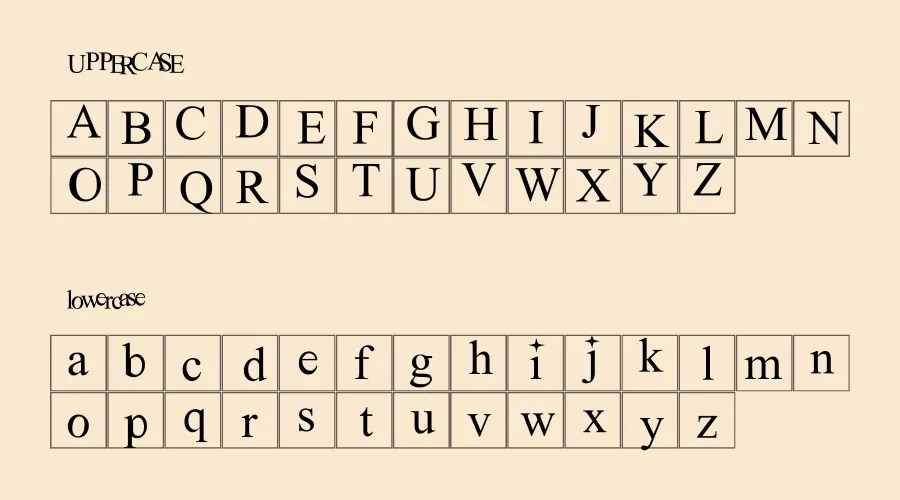
About New Romantics Font
The New Romantics Font was developed by a famous graphic designer named Jennifer Heinicke. This attractive font is under the category of the fancy typeface family with a unique texture look for the viewers.
It contains 216 types of glyphs with 218 outstanding textures such as small letters, capital letters, digital, symbols, and punctuations. The online generator tool of this typeface is excellent for converting all simple surfaces into stylish characters.